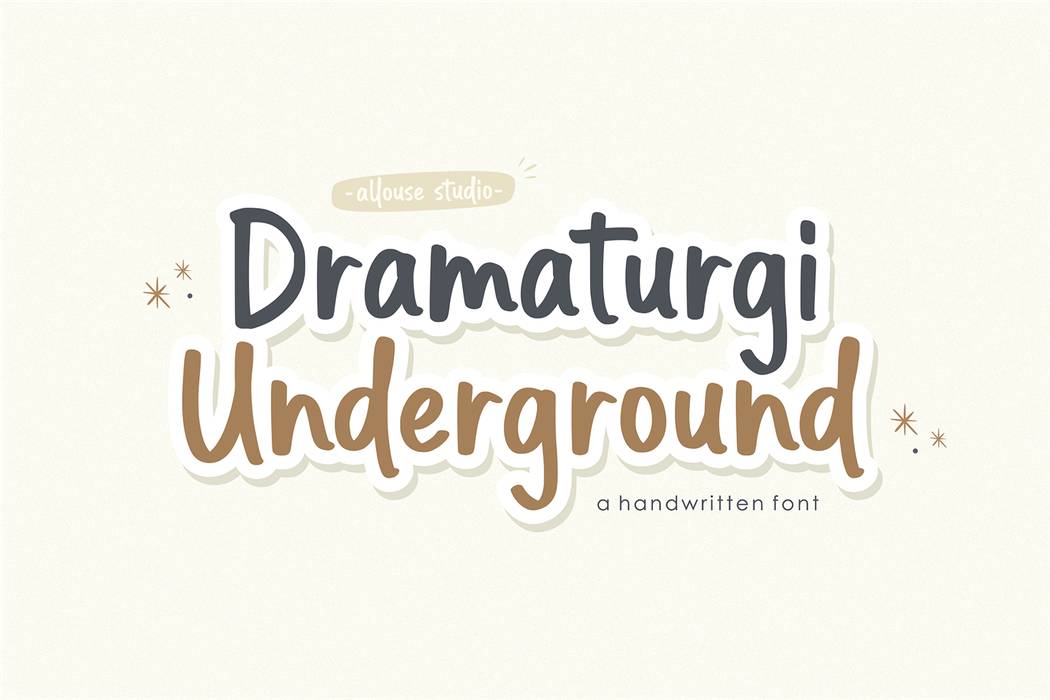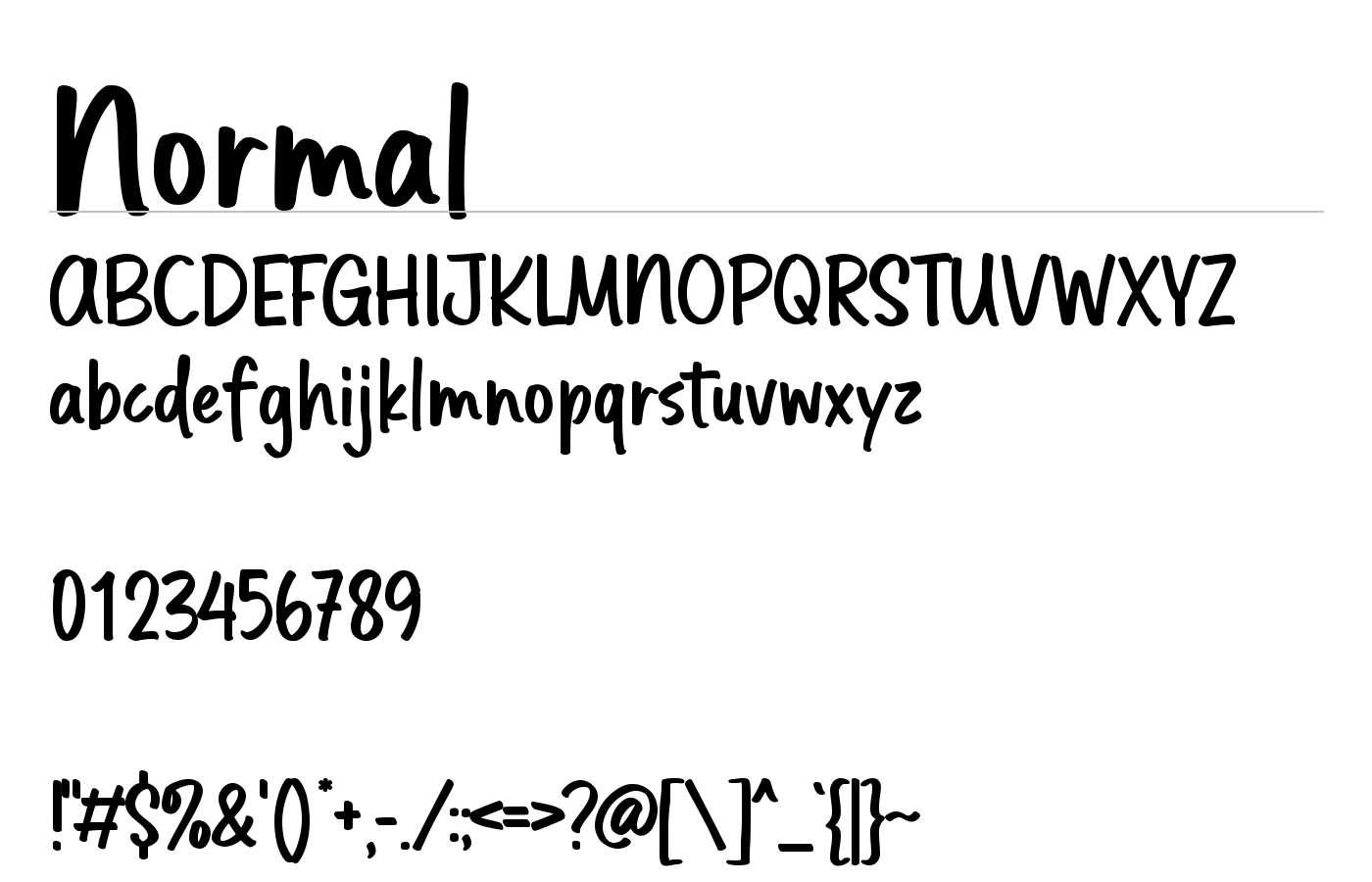
Dramaturgi Underground is a playful and casual handwritten sans serif font with a friendly and approachable vibe. Its tall, slightly rounded letterforms and irregular strokes give it a lively and informal feel, making it ideal for creative projects, children’s books, and branding that wants to convey warmth and personality. This font works well in headlines, posters, and logos where a personal, hand-drawn touch is desired.
Dramaturgi Underground Font
About Dramaturgi Underground Font